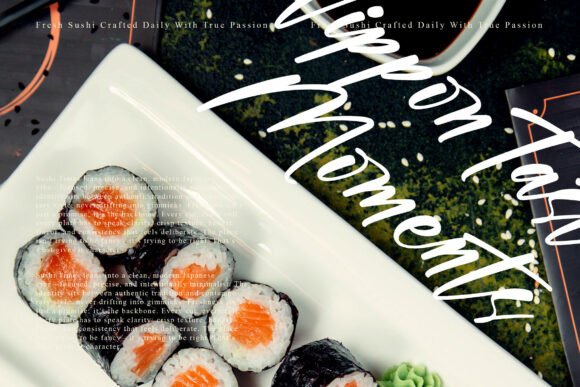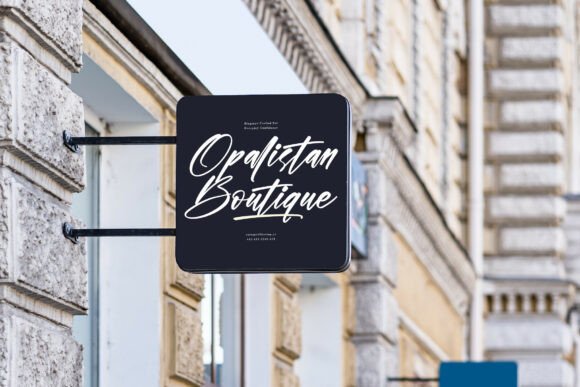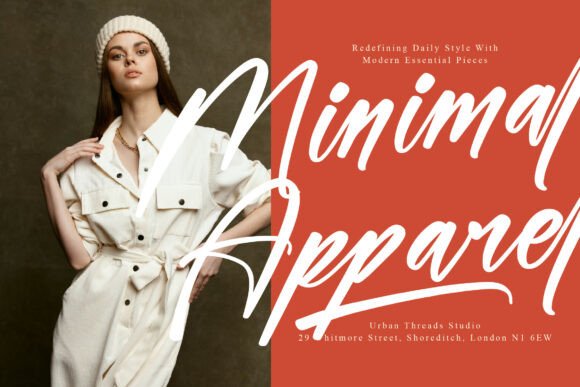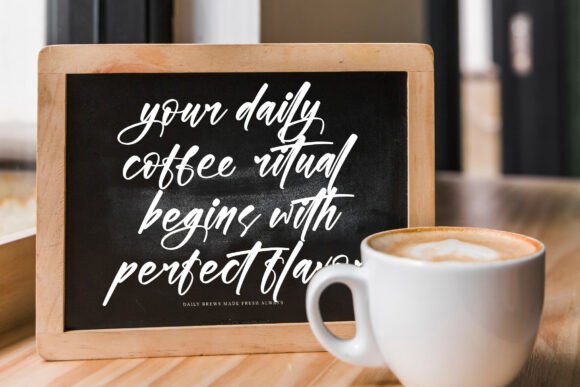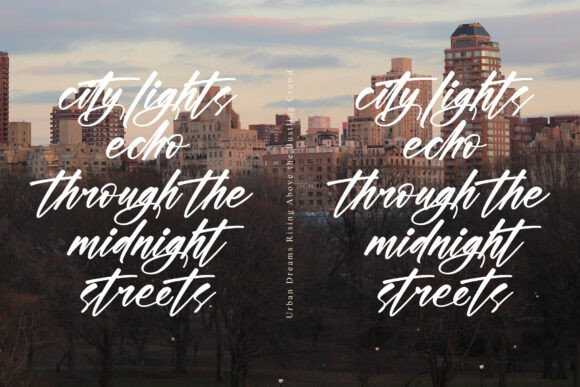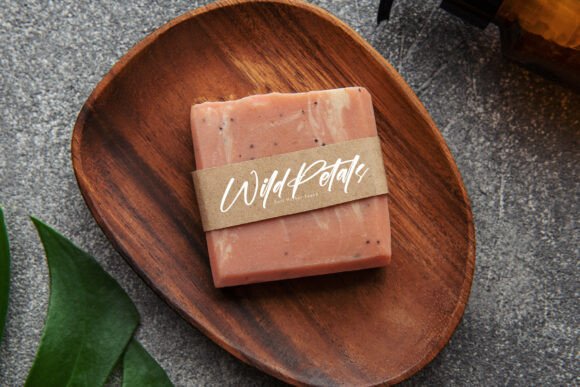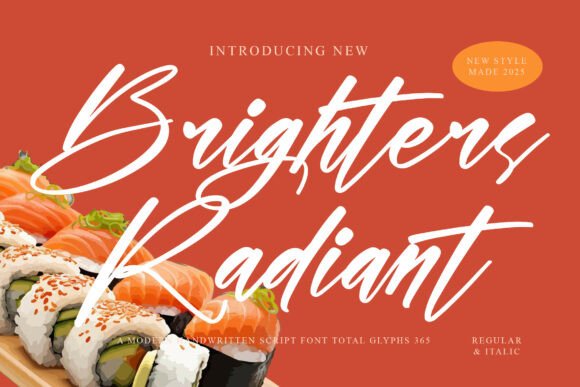
Introducing Brighters Radiant Font: Elevate Your Designs with Elegance and Charm
Are you searching for a font that embodies the perfect blend of modern elegance and handwritten charm? Look no further than Brighters Radiant, a stunning script font designed to bring a delightful energy to your designs. This beautifully flowing modern handwritten script font is an excellent choice for food, lifestyle, and feminine branding projects, making it a must-have for designers and crafters alike.
The Essence of Brighters Radiant
Brighters Radiant is more than just a font – it’s an expression of warmth, elegance, and approachable style. Its casual, expressive flow maintains a natural written look, ensuring excellent readability and making it perfect for a wide range of design applications. Whether you’re working on restaurant branding, food packaging, wedding stationery, or elegant social media graphics, Brighters Radiant brings a bespoke, personal, and friendly touch to any design.
Key Features of Brighters Radiant
- Instantly Appealing and Beautifully Flowing: Brighters Radiant features a modern handwritten script style that radiates a delightful energy, making it perfect for designs that require a touch of elegance and charm.
- Excellent Readability: The font’s casual, expressive flow ensures that your text remains clear and easy to read, even in smaller sizes.
- Versatile and Flexible: With both Regular and Italic styles, along with 365 total glyphs, Brighters Radiant offers excellent versatility for various design layouts.
Brighters Radiant is an incredibly versatile font that can be used for a wide range of design projects, including:
- Restaurant Branding: Add a touch of elegance and sophistication to your restaurant’s branding, menus, and marketing materials.
- Food Packaging: Make your food packaging stand out with Brighters Radiant’s charming and approachable style.
- Wedding Stationery: Create beautiful and elegant wedding stationery, including invitations, save-the-dates, and thank-you cards.
- Elegant Social Media Graphics: Elevate your social media graphics with Brighters Radiant’s modern and sophisticated style.
Why Choose Brighters Radiant?
With so many fonts available, why choose Brighters Radiant? Here are just a few reasons why this stunning script font stands out:
- Unique and Eye-Catching: Brighters Radiant’s modern handwritten script style is sure to grab attention and make your designs stand out.
- High-Quality and Versatile: With its excellent readability and 365 total glyphs, Brighters Radiant is a high-quality font that can be used for a wide range of design projects.
Brighters Radiant is a radiant and versatile script font that is sure to elevate your designs with its elegance, charm, and approachable style. With its excellent readability, 365 total glyphs, and PUA-encoding, this font is perfect for designers and crafters who want to create beautiful and effective designs. Whether you’re working on restaurant branding, food packaging, wedding stationery, or elegant social media graphics, Brighters Radiant is the perfect choice.